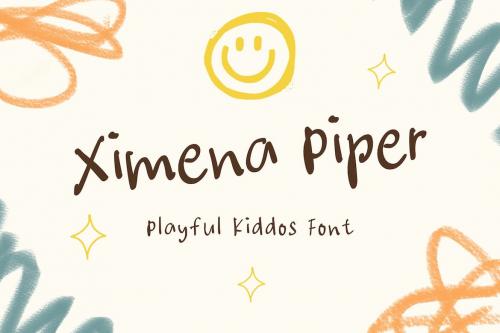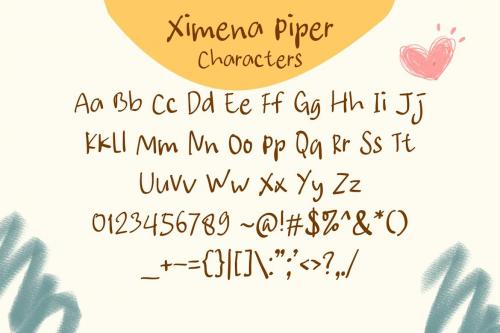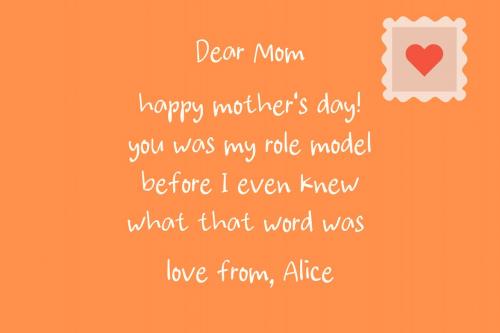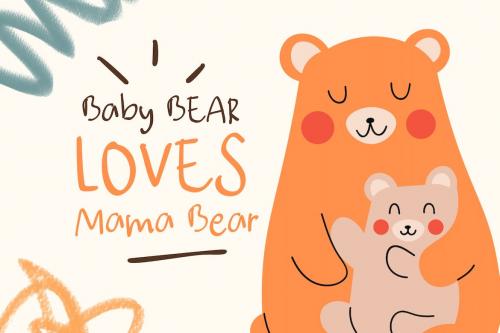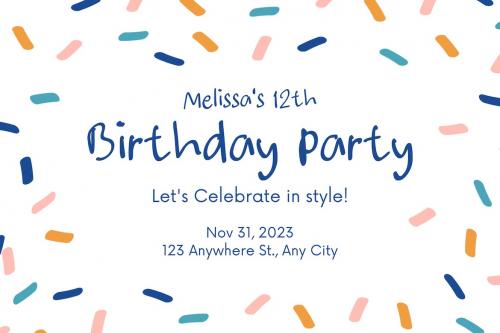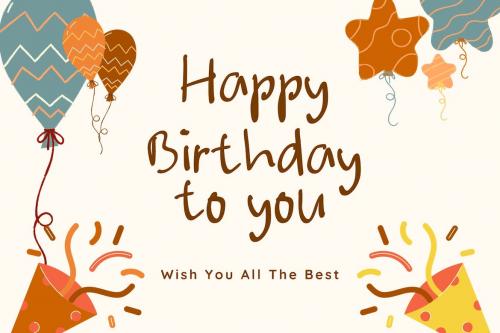
Ximena Piper - Playful Kiddos Font
**Ximena Piper - Playful Kiddos Font** - is a Handwritten playful kiddos font with dancing baseline letterforms that adds a fun touch of personality to any design.
**Features:**
* Uppercase and Lowercase
* Numeral & Punctuation
* Multilingual support